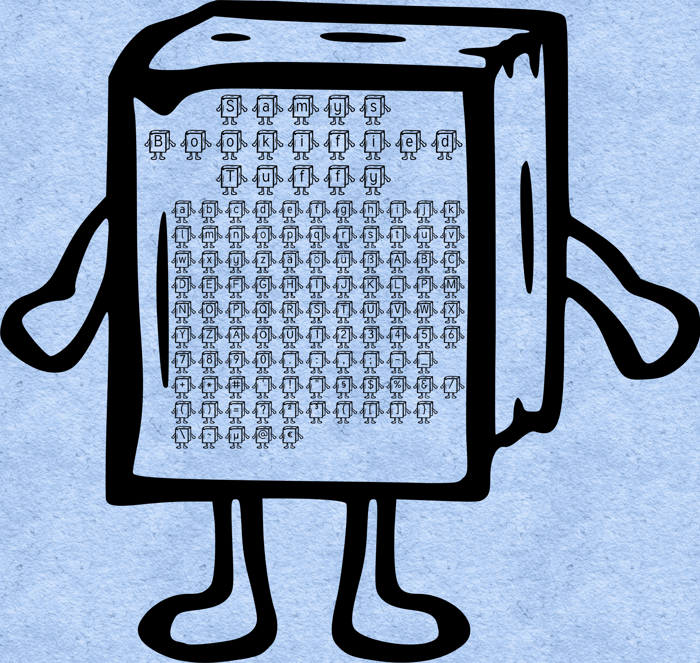
Samys Bookified Tuffy Font
This is a free (Public Domain) book font, based on the Public Domain font "Tuffy" by Thatcher, found on http://tulrich.com/fonts/ .